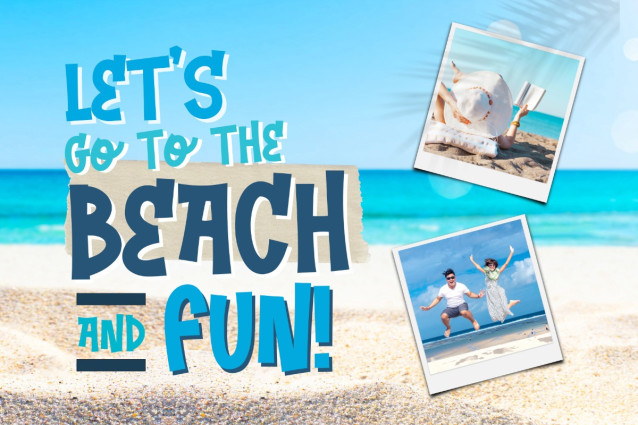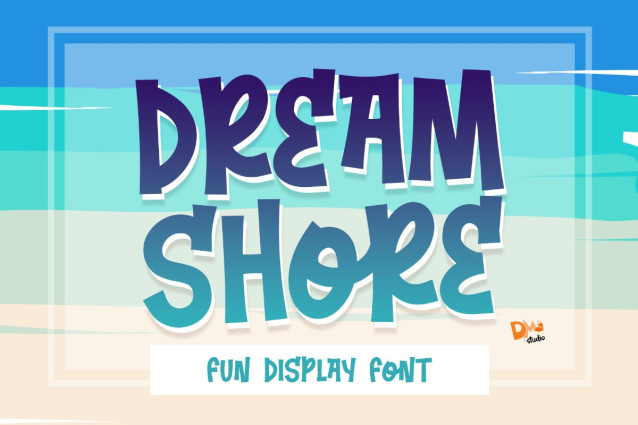
Dream Shore Font
Dream Shore Font is a captivating and versatile typeface designed to evoke a sense of dreaminess and creativity in your projects. With its elegant letterforms and unique style, this font is perfect for various applications, from branding and packaging to editorial designs. Immerse your creations in the enchanting aura of the Dream Shore Font.